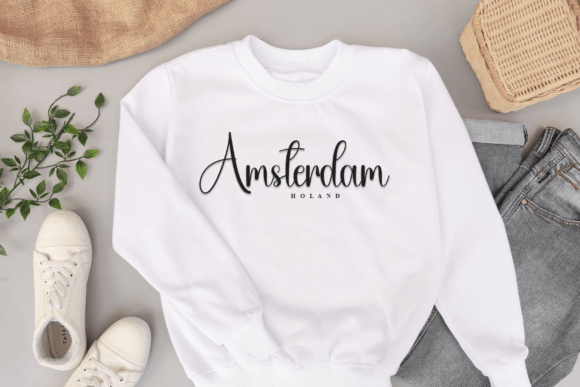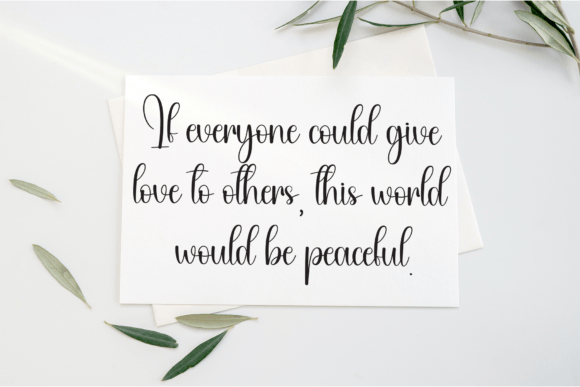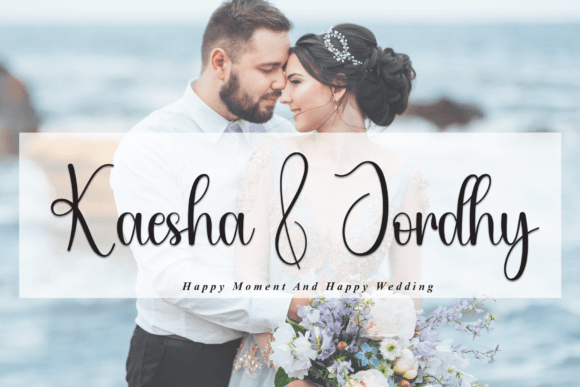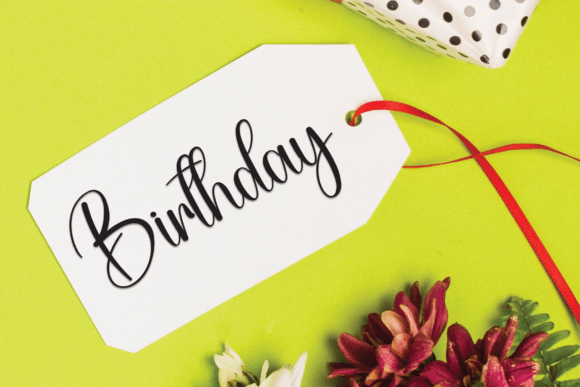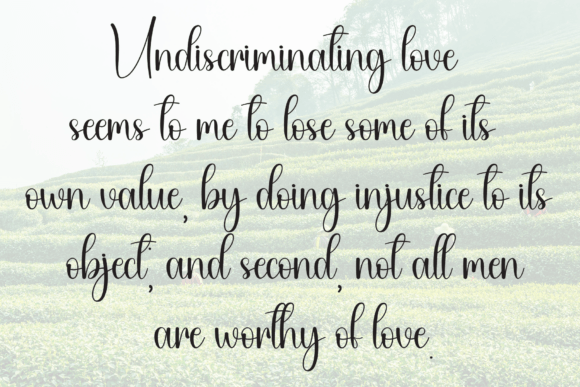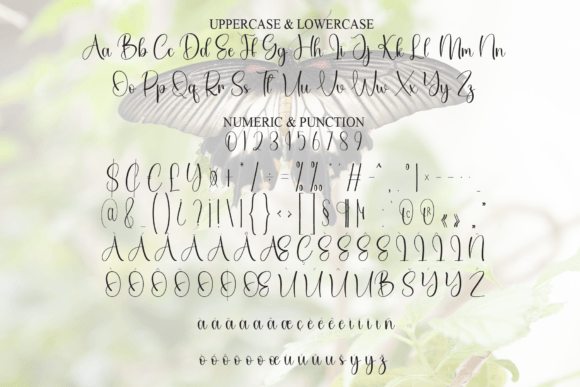
The Perfect Touch of Whimsy: Unlocking the Magic of the Butterfly Font
Have you ever been brainstorming a creative project and suddenly, out of nowhere, the perfect font pops into your head? For many designers, this moment of serendipity is what sets their ideas in motion. It’s a feeling of pure excitement and inspiration, knowing that the right font can elevate your design from ordinary to extraordinary. For me, that moment came when I stumbled upon the enchanting Butterfly Font.
The Butterfly Font is a beautiful handwritten script font that exudes elegance and playfulness. Its flowing lines give it a personal and artistic touch, making it perfect for creating stunning designs like cards, logos, or invitations. As a designer, finding a font like this is a treasure, and I’m excited to share its charm with you.
Key Features of Butterfly Font
- Font Family: Butterfly Font comes in two font families – Regular and Bold, with 12 styles each, including Italic and Bold Italic.
- Unique Characteristics: The Butterfly Font features a unique, whimsical design with a mix of elegant and playful elements, making it suitable for a wide range of applications, from branding and advertising to editorial and children’s content.
- Language Support: Supports over 200 languages, including Latin, Cyrillic, and Greek alphabets, making it a versatile choice for international designs.
Butterfly Font Review
Overall, I have mixed feelings about the Butterfly Font. On the positive side, I think it ✨ captures a whimsical and playful vibe ✨, making it perfect for projects that require a touch of magic. The font’s intricate details and ornate design elements add a level of sophistication that’s hard to resist.
However, there are some limitations to consider ⚠️. Firstly, the font may be a bit too ornate for some projects, which can make it difficult to read. Additionally, the font’s complexity can make it challenging to customize and pair with other fonts. Here are some specific limitations to keep in mind:
- May be difficult to read due to intricate details
- Can be challenging to customize and pair with other fonts
- May not be suitable for projects requiring a clean and minimalist design
Despite these limitations, I think the Butterfly Font is still a great choice for the right project. If you’re looking for a font that adds a touch of whimsy and sophistication, this may be the perfect fit. Just be sure to use it thoughtfully and pair it with other fonts that complement its ornate design.
Practical Application Guide for Butterfly Font
Some common use cases for the Butterfly Font include:
- Stationery and greeting cards
For maximum impact, pair the Butterfly Font with soft colors, elegant backgrounds, and minimalist designs. Experiment with different font sizes and styles to create a unique look that suits your needs.
Alternatives to Butterfly Font
Great Vibes Font is a modern, elegant script font that is perfect for creating a sophisticated and stylish look. It is ideal for use in invitations, wedding designs, and other high-end applications. Compared to Butterfly Font, Great Vibes Font has a more refined and polished feel, making it a great choice for designers who want to add a touch of luxury to their designs.
Lobster Font is a fun, casual script font that is great for creating a playful and energetic vibe. It is perfect for use in social media graphics, advertising, and other applications where a lighthearted tone is desired. Compared to Butterfly Font, Lobster Font has a more relaxed and informal feel, making it a great choice for designers who want to add a bit of whimsy to their designs.
Can I use the Butterfly Font for digital signage or other high-resolution displays?
Yes, the Butterfly Font is designed to be scalable and suitable for use in high-resolution displays. However, please note that the font’s performance may be affected by the resolution and rendering engine used in your project. It’s always a good idea to test the font in your specific application before finalizing your design.